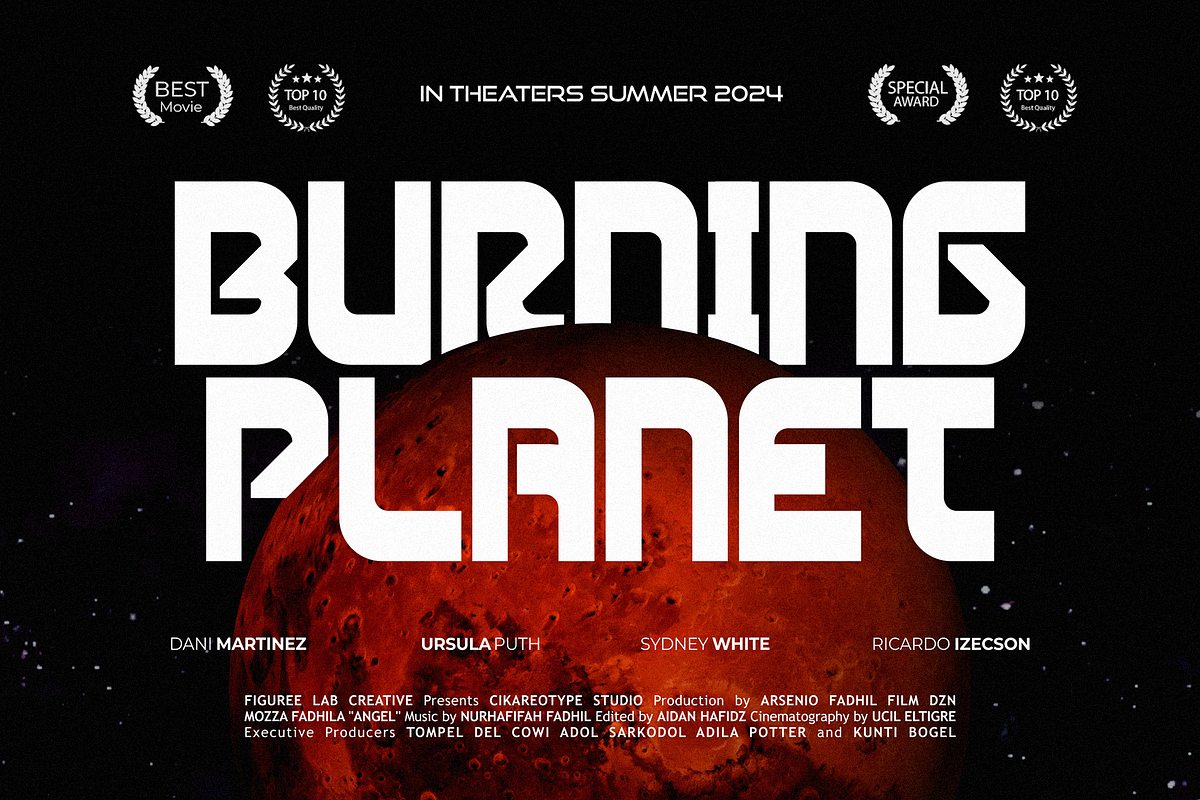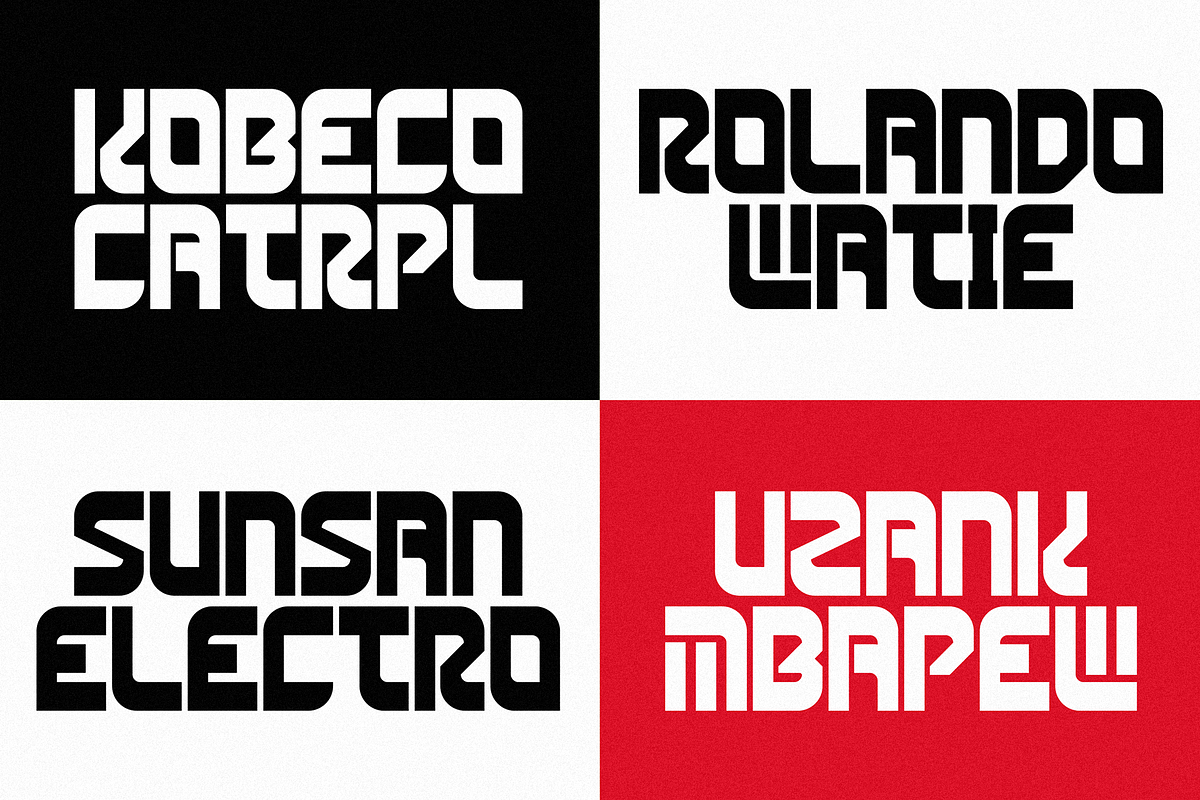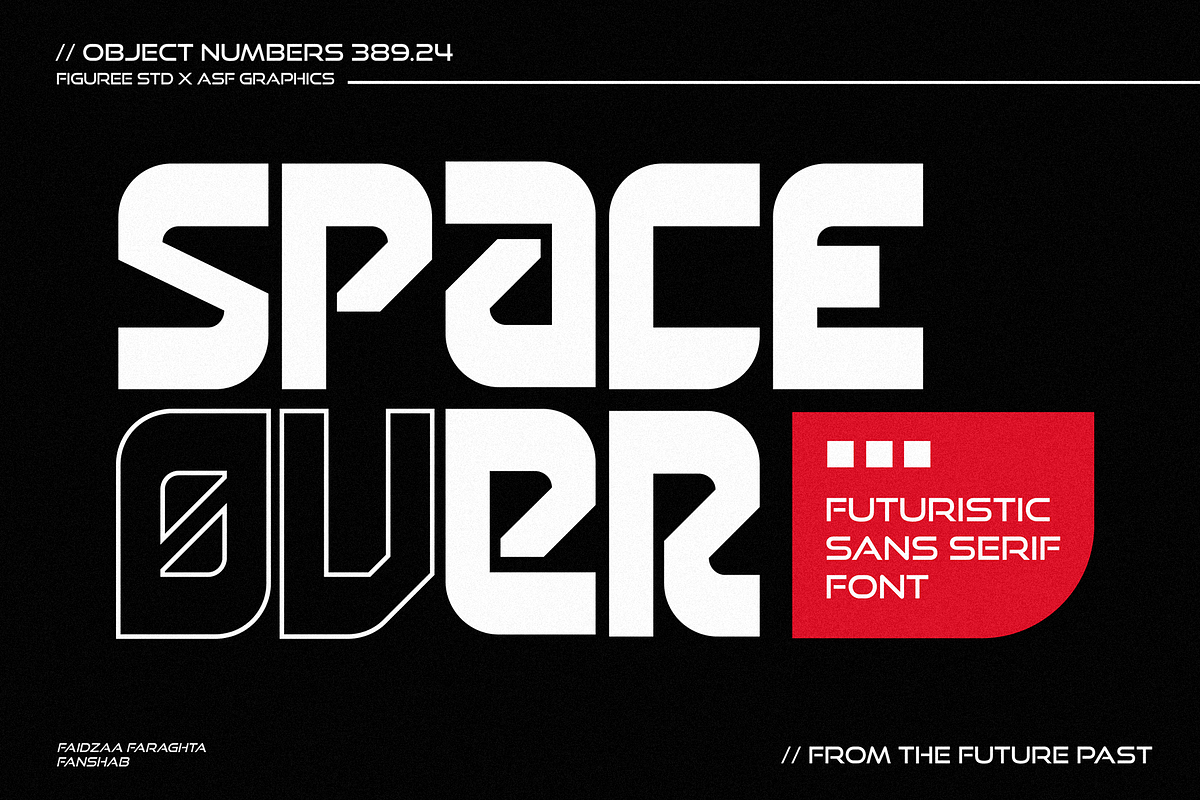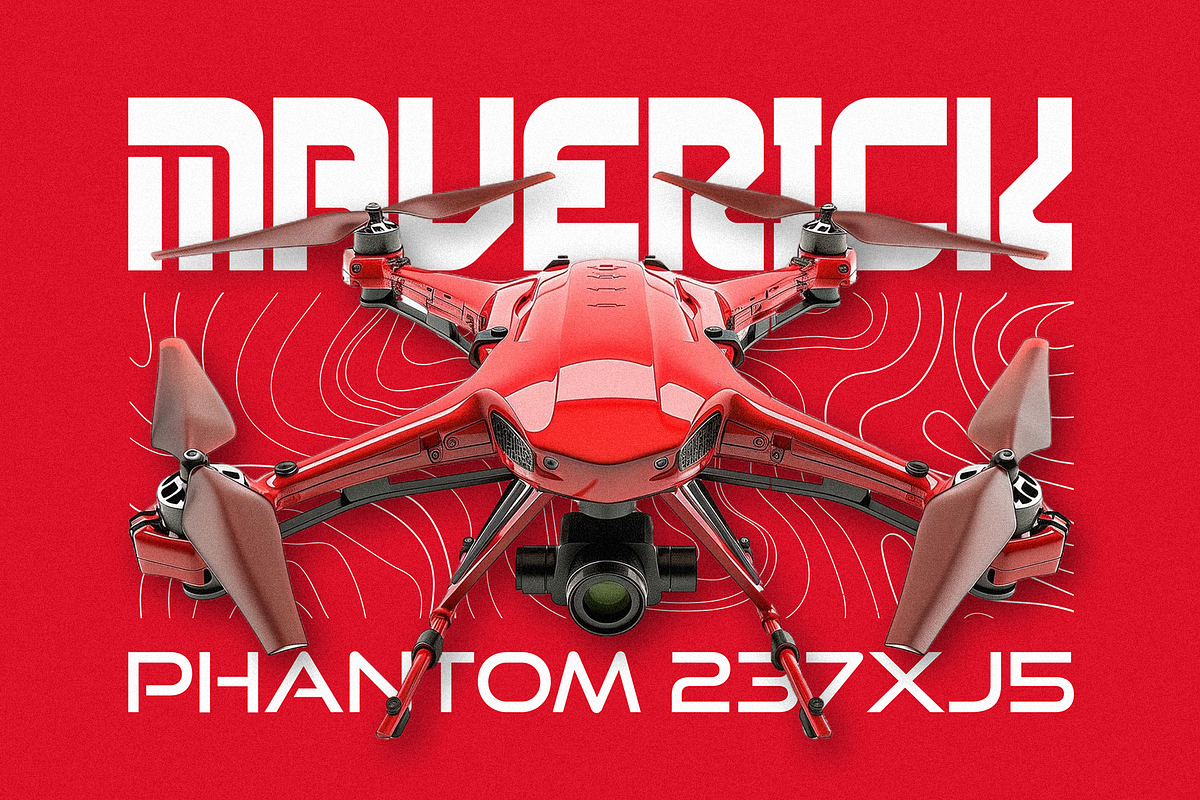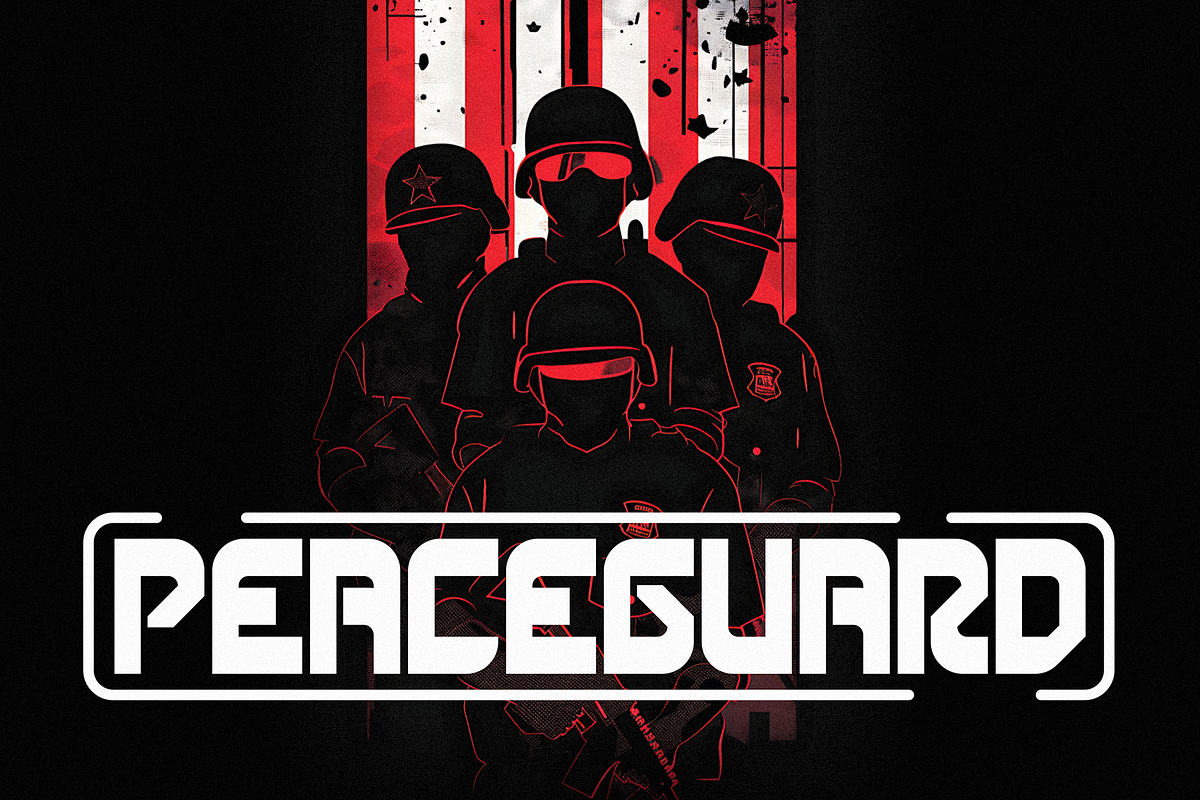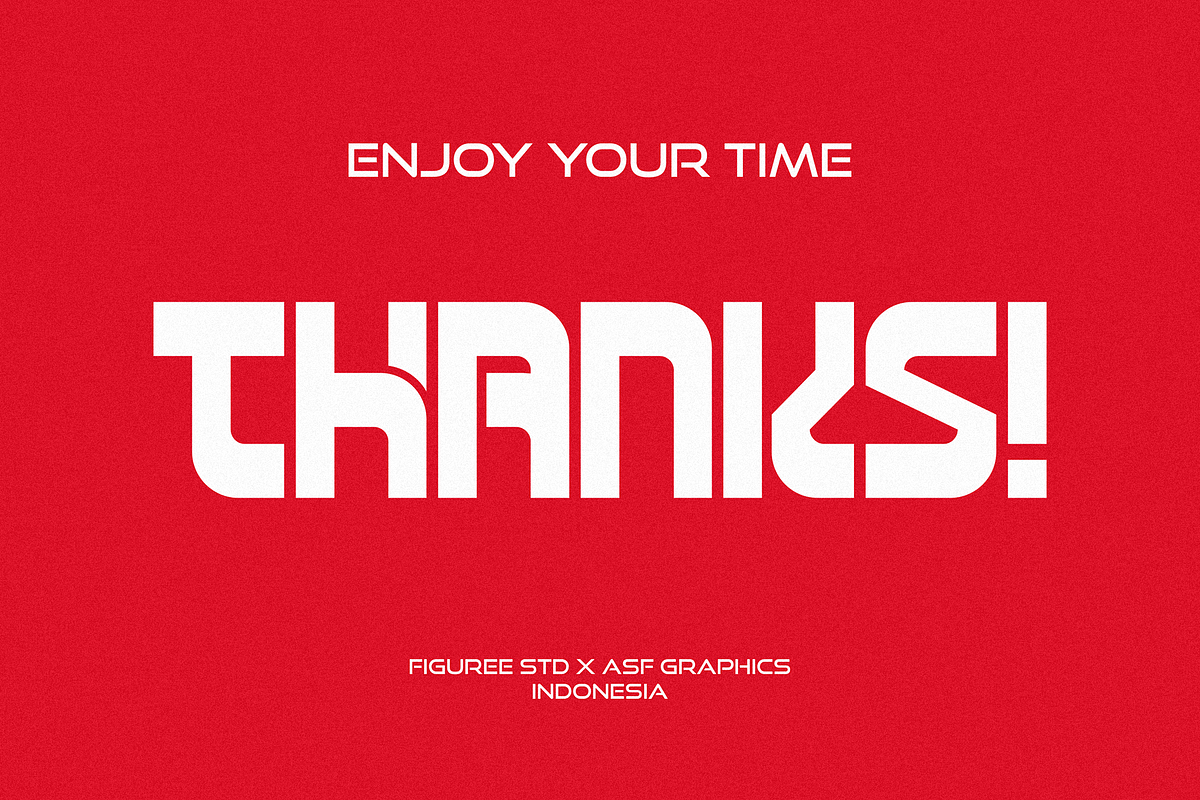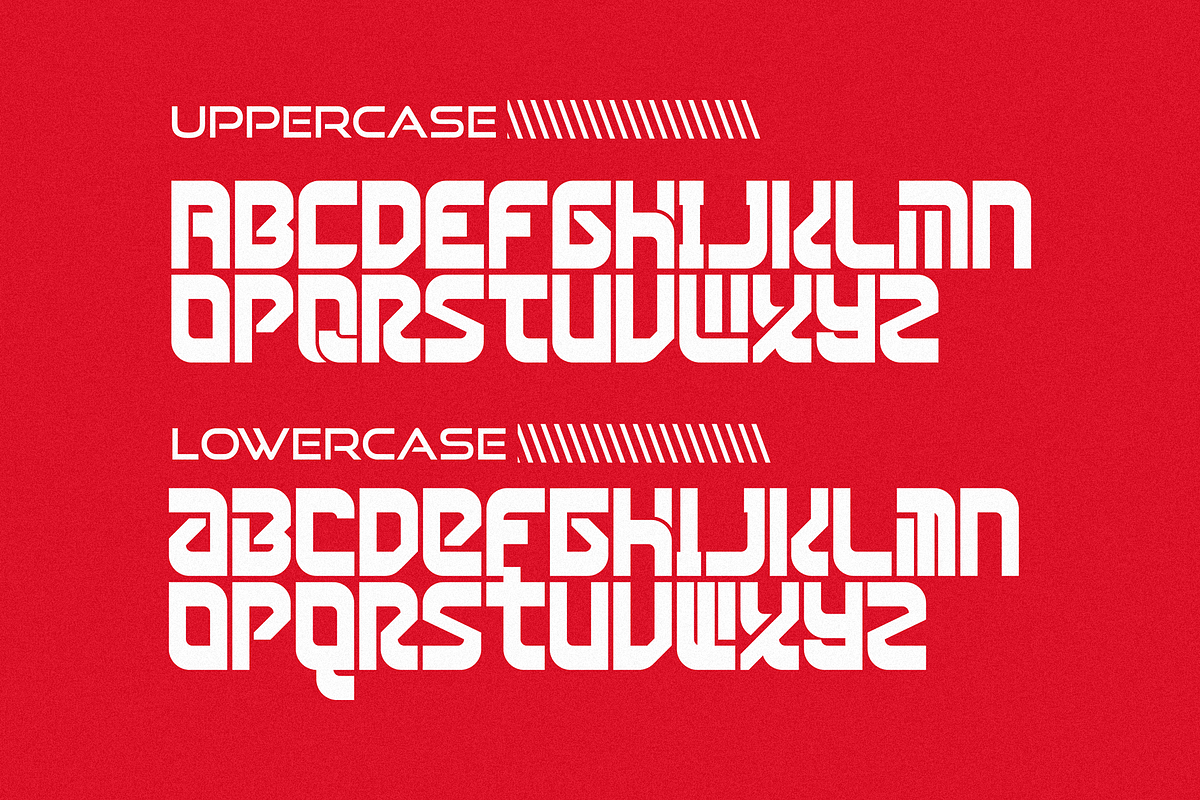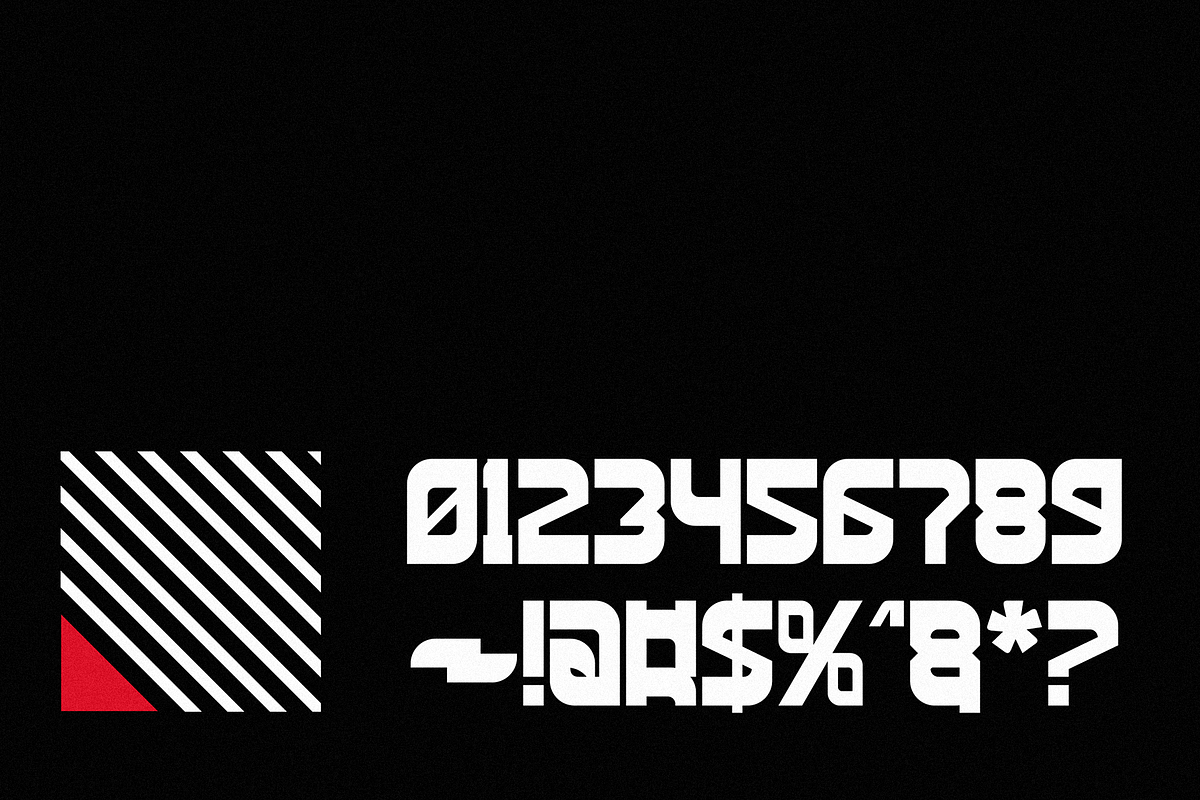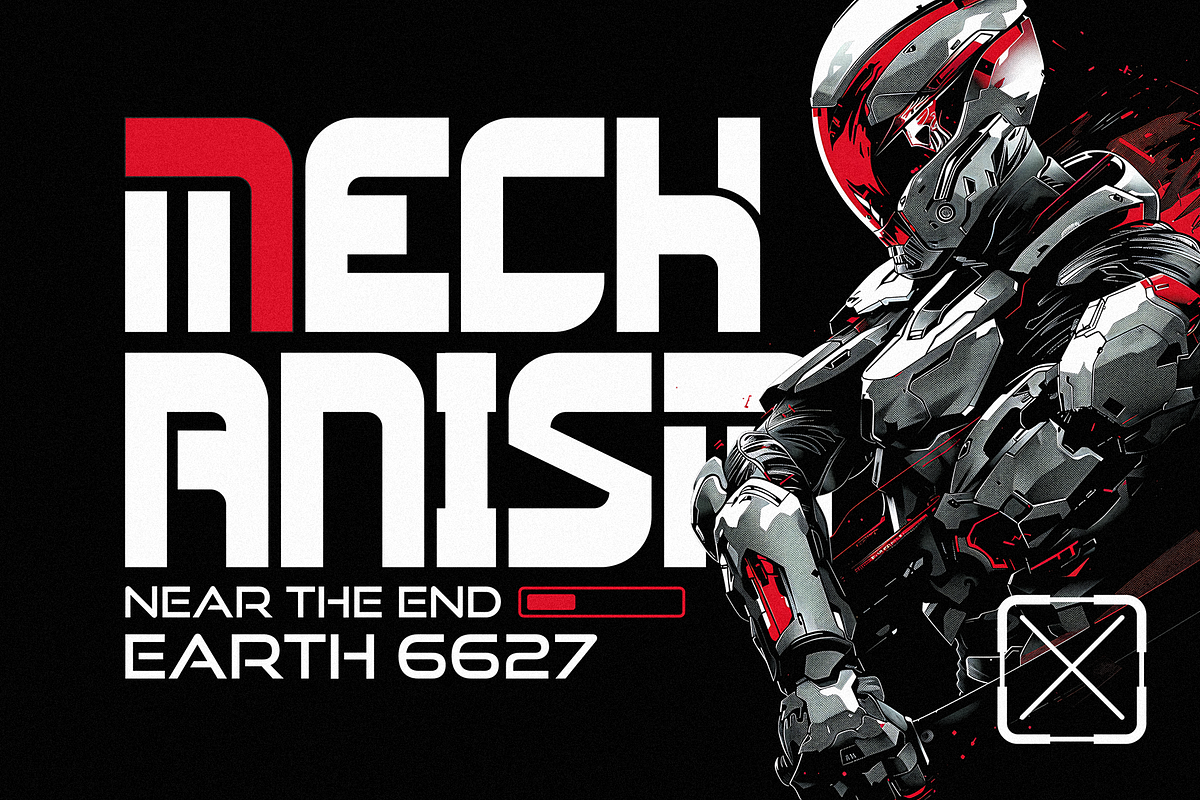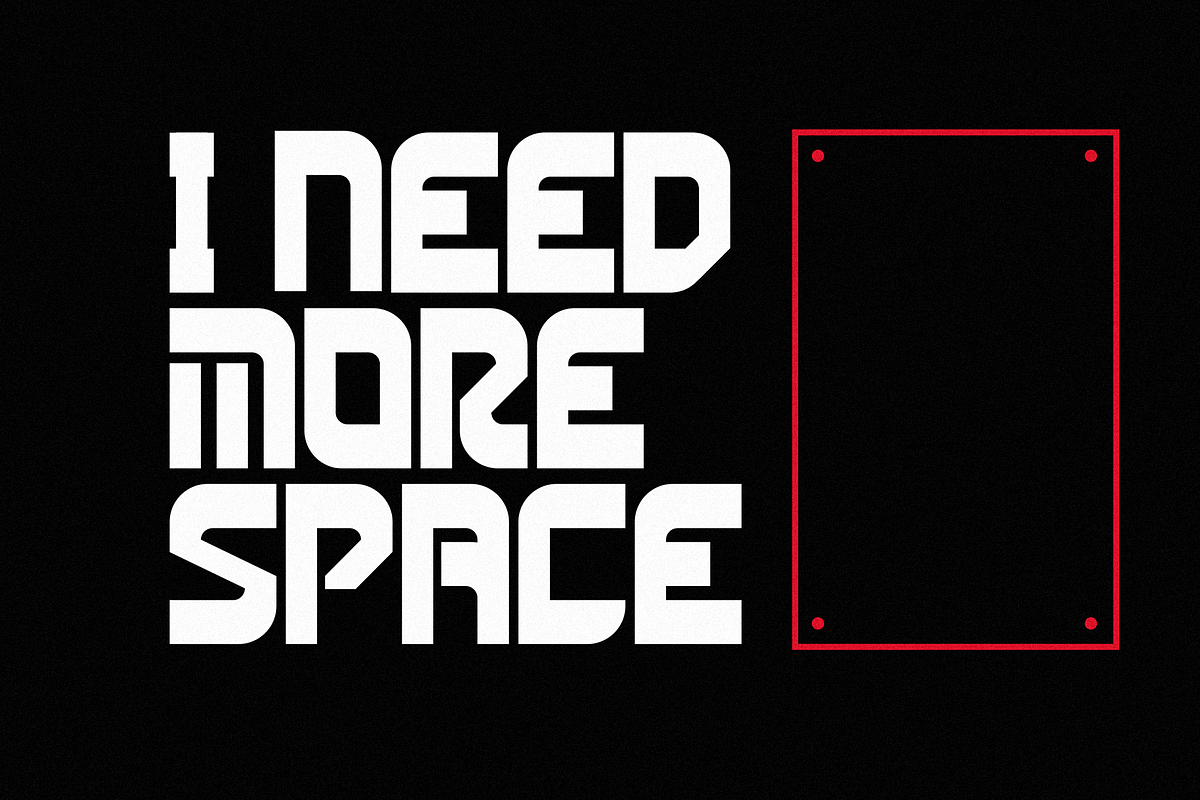
Space Over - Futuristic Sans Serif
Space Over is a futuristic sans-serif font that propels your designs into the next dimension. With sleek, modern lines and a clean, minimalist aesthetic, this font is perfect for projects that need a forward-thinking, cutting-edge look.
🚀 Futuristic Design: Space Over embodies modernity with sharp, geometric shapes and a streamlined form, making it ideal for tech-related designs, sci-fi themes, and any project aiming to convey innovation and progress.
🌌 Versatile and Adaptable: Whether you're designing logos, headlines, or digital interfaces, Space Over's versatility allows it to excel in any context. Its clean lines ensure readability, while its futuristic style adds a unique flair to your text.
🌟 Minimalist Elegance: The simplicity of Space Over is its strength. This sans-serif font exudes a minimalist elegance that makes it a perfect fit for modern branding, editorial design, and high-tech advertising.
💫 Bold Impact: Despite its clean appearance, Space Over makes a strong visual statement. Its futuristic design ensures your text stands out, making it an excellent choice for grabbing attention and leaving a lasting impression.
🔮 Innovative Appeal: Designed with the future in mind, Space Over captures the spirit of innovation and forward-thinking design. It’s ideal for projects that want to break away from the ordinary and embrace the possibilities of tomorrow.
Elevate your designs with Space Over, the futuristic sans serif font that combines sleek modernity with bold impact. This font is the ultimate choice for creators who want to push the boundaries of design and explore new horizons.